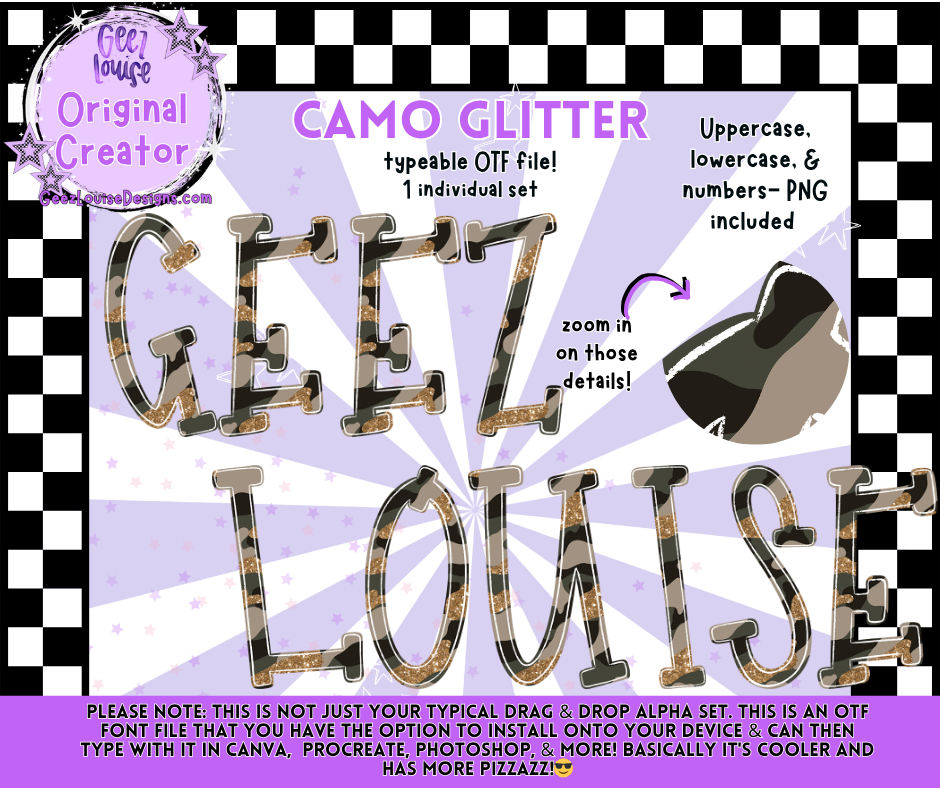
Camo Glitter Alpha | OTF Font + PNG Letter Set
Add a little sparkle to your rugged side with the Camo Glitter Alpha!
This bold, versatile set combines modern camouflage patterns with a touch of glitter glam — perfect for designs that blend tough and trendy. Whether you’re creating apparel, tumbler wraps, or digital graphics, this typeable alpha adds instant attitude and shine.
This is not just a drag-and-drop alpha — it’s a fully typeable OTF font that lets you design faster with built-in glitter and camo details.